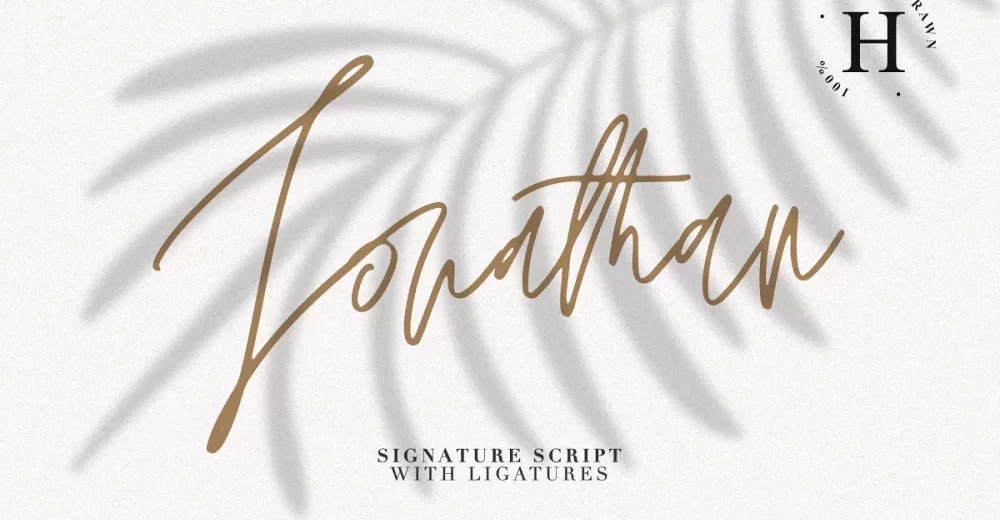
Jonathan Font
Jonathan is a signature-style script font. Any inscription will look like a natural stroke. This will give a unique look to your projects. It is ideal for signature or design, postcards and greetings, websites or blogs.
• Uppercase and lowercase
• Numbers and punctuation
• Foreign language support
• Ligatures